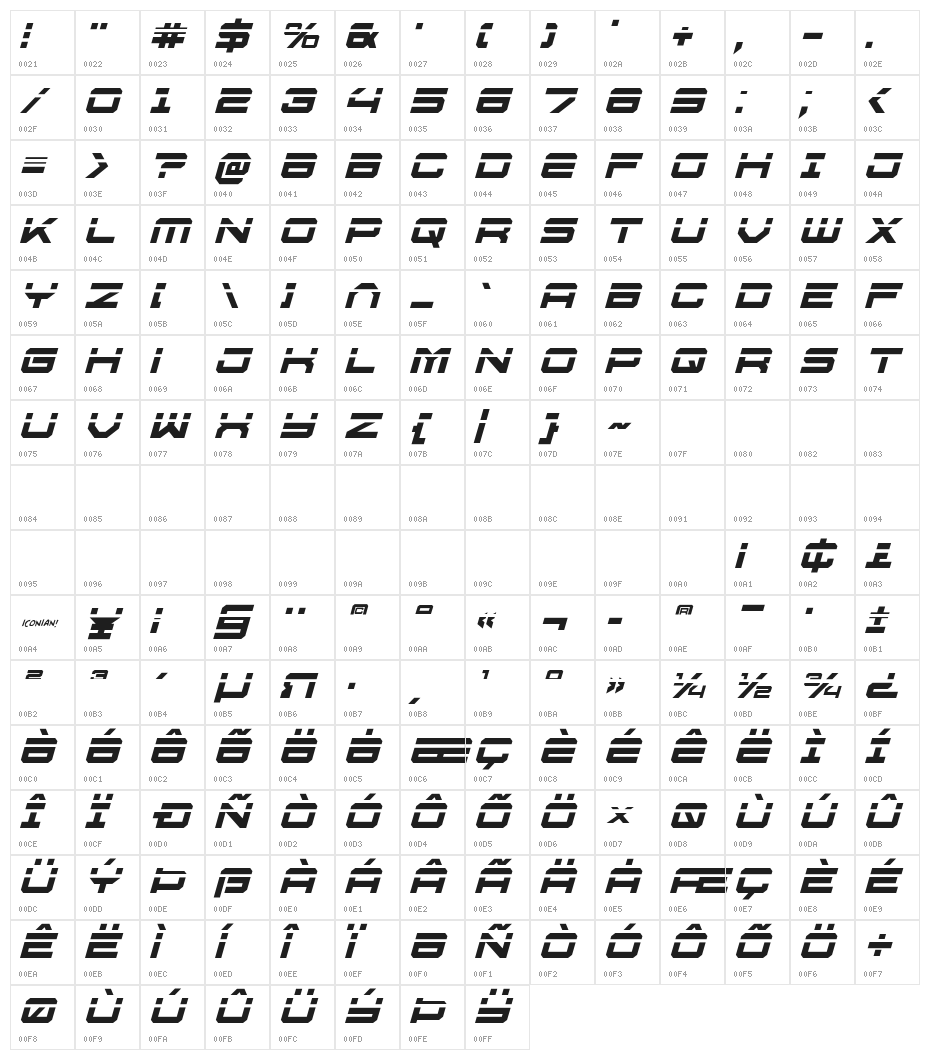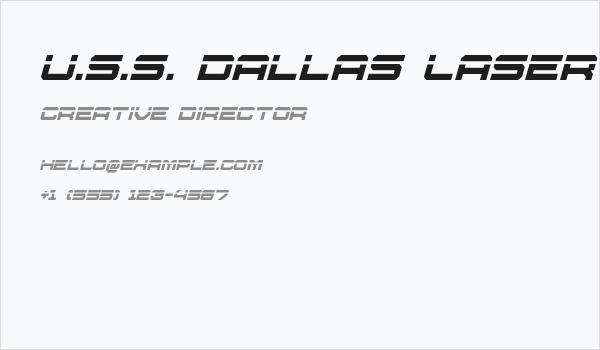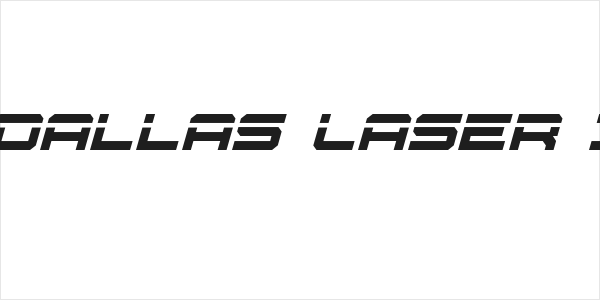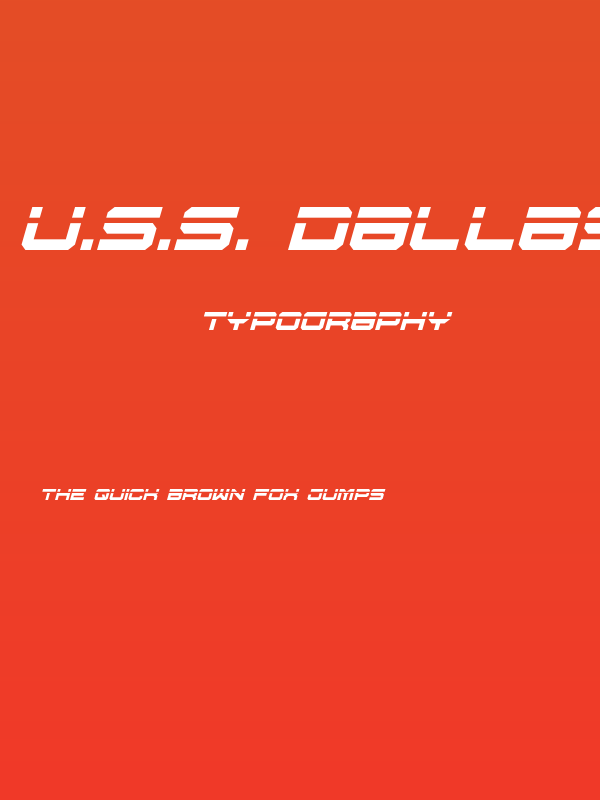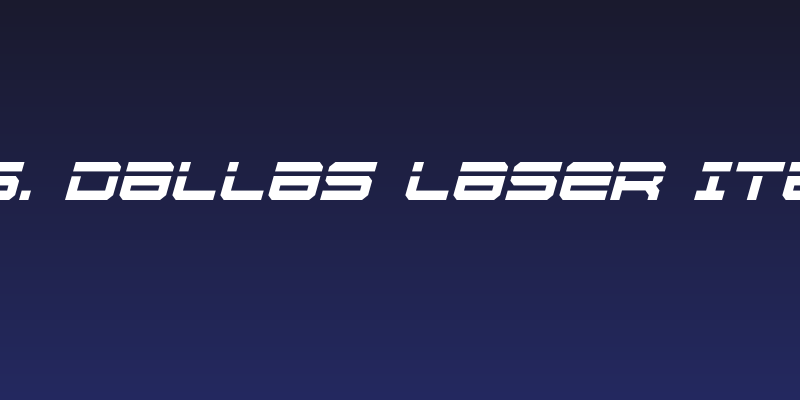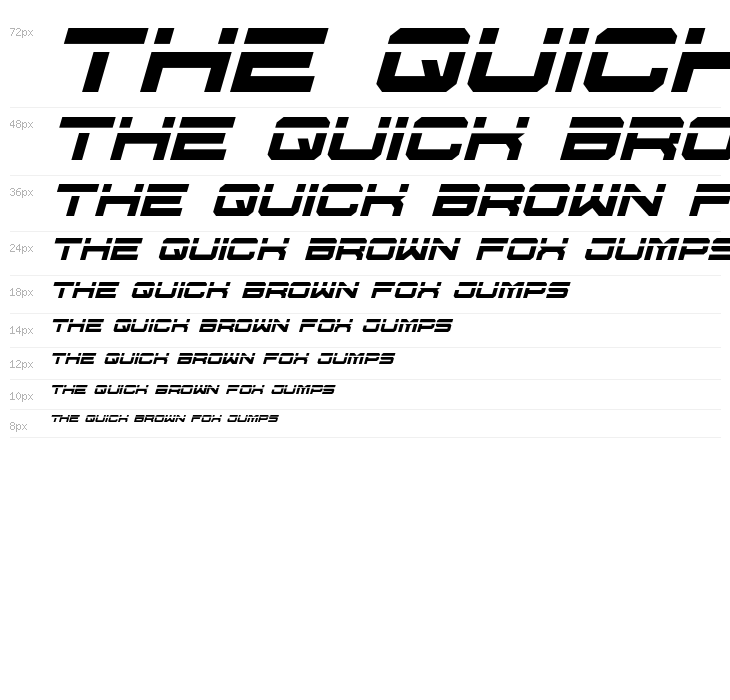
U.S.S. Dallas Laser Italic Font
U.S.S. Dallas Laser Italic Description
This font features a futuristic and angular design, characterized by sharp edges and a slanted, italicized form. The letters are bold and have a distinct geometric style, with consistent angles and a sleek, modern appearance. The uppercase and lowercase letters maintain a uniformity in style, while the numbers and special characters complement the overall aesthetic. The font's design is reminiscent of digital or sci-fi themes, making it suitable for projects that require a modern and edgy look.
| Proposed Projects | Ideal for sci-fi themed designs, technology branding, video game titles, and futuristic posters. |